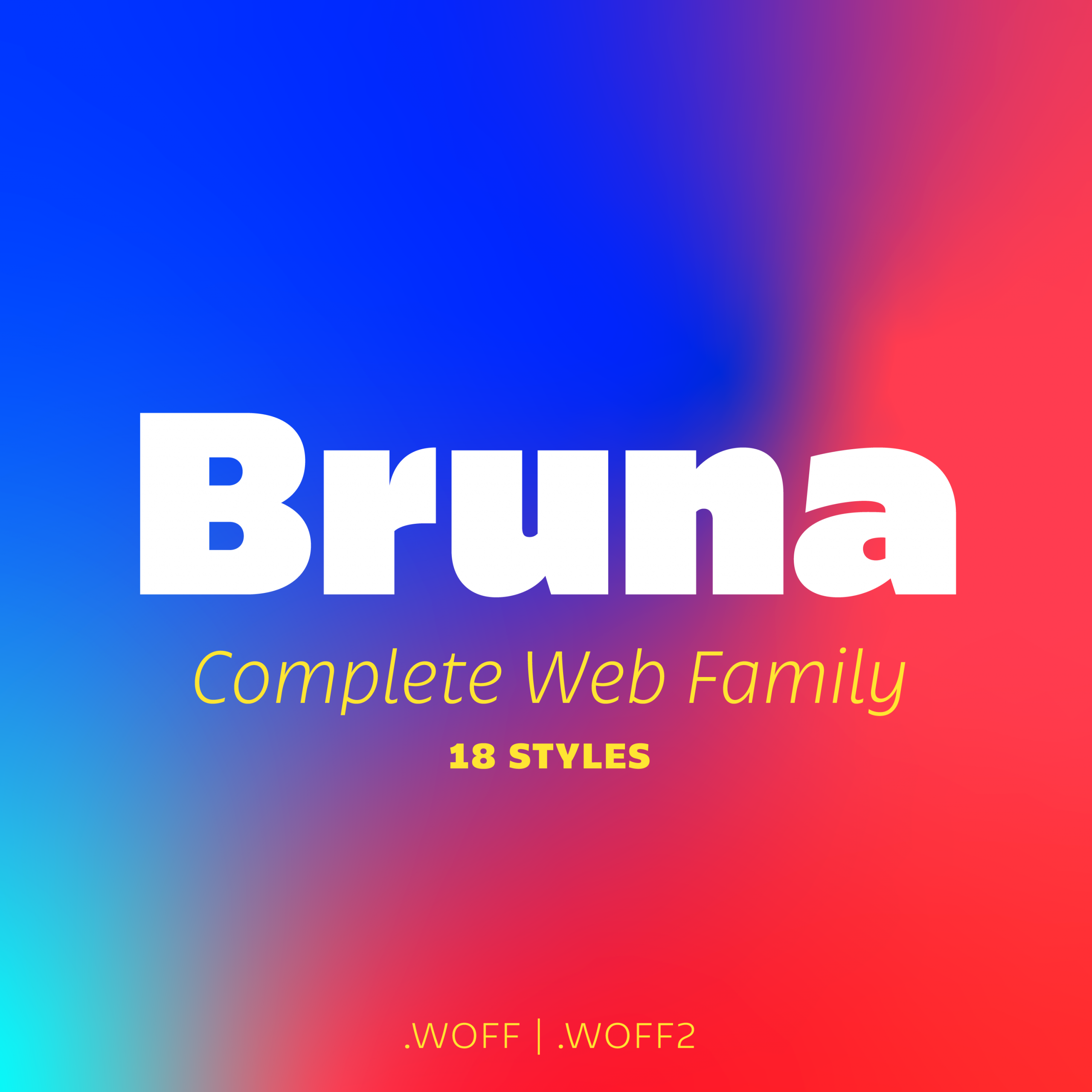
This complete family contains 18 fonts: Thin, Thin Italic, ExtraLight, ExtraLight Italic, Light, Light Italic, Book, Book Italic, Regular, Italic, Medium, Medium Italic, Bold, Bold Italic, Black, Black Italic, Heavy, Heavy Italic, each one in WOFF, and WOFF2 format.
Bruna Family Web
The 18 Bruna Family fonts are ideal for use in small sizes, starting at 6 pt. on text sizes (Light, Book, Regular, Medium, and Bold + Italics), and in big sizes (Thin, ExtraLight, Black, and Heavy + Italics), starting at 18 pt. on web.